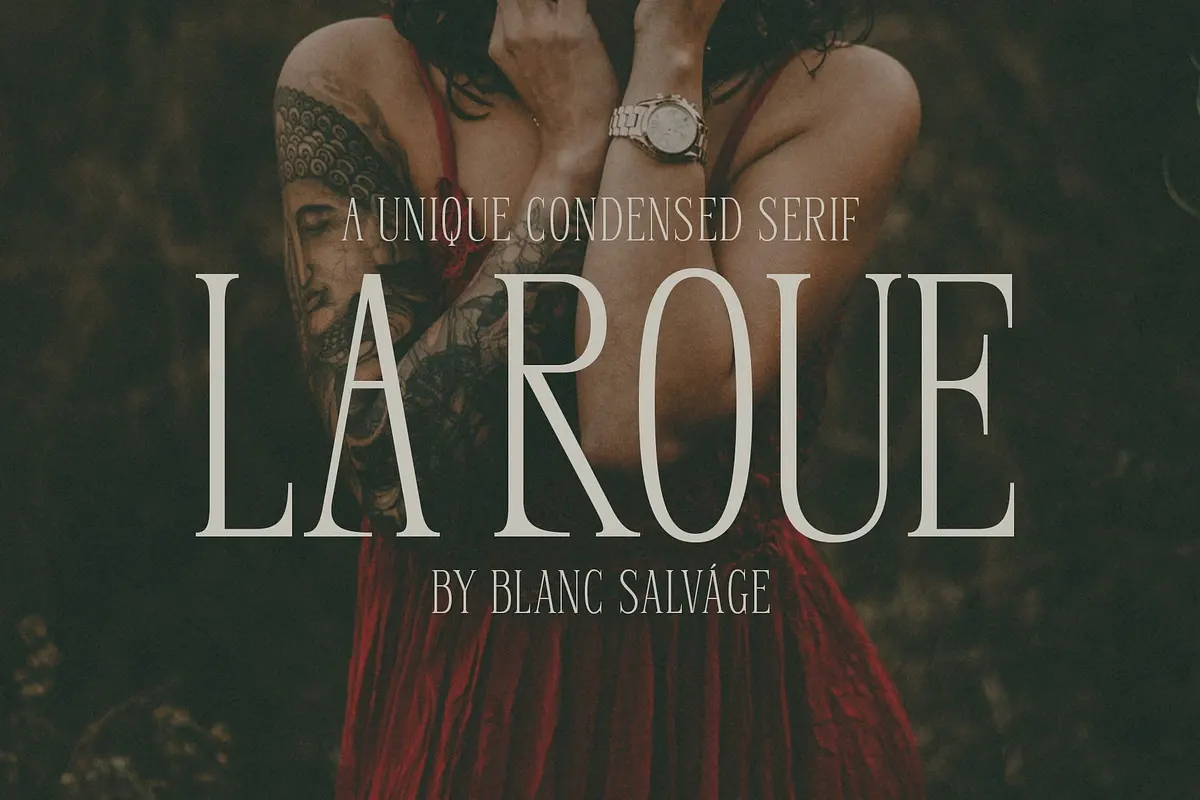
La Roue Elegant Condensed Serif Font Free Download is a refined and graceful typeface that pairs classic serif styling with a narrow, space-saving form. Perfect for fashion branding, editorial design, luxury packaging, invitations, and high-end website headers, La Roue offers sophistication with a modern edge. Its tall letterforms and delicate contrasts create a striking, elegant presence without overwhelming your layout.
Designed for designers who value both style and efficiency, La Roue works beautifully in headlines, logos, and structured typographic compositions. It brings timeless charm to both print and digital formats.